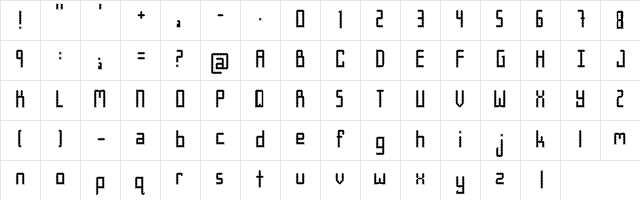
Mishu Regular
| Foundry | Mishu Incorporation |
| Designer | Mishu Baba |
Design Context for Mishu Typeface
Mishu is a composed and adaptable typeface that performs quietly and consistently across a wide range of design contexts.